Font Made from iPhone Apps
The mysterious Urikane of Barcelona, Spain, has created an alphabet by grouping hundreds of color-coded iPhone apps: 540, to be exact.
The result, though not a true font, is nonetheless entertaining, as this sample of “C” shows:
Here’s the entire alphabet:
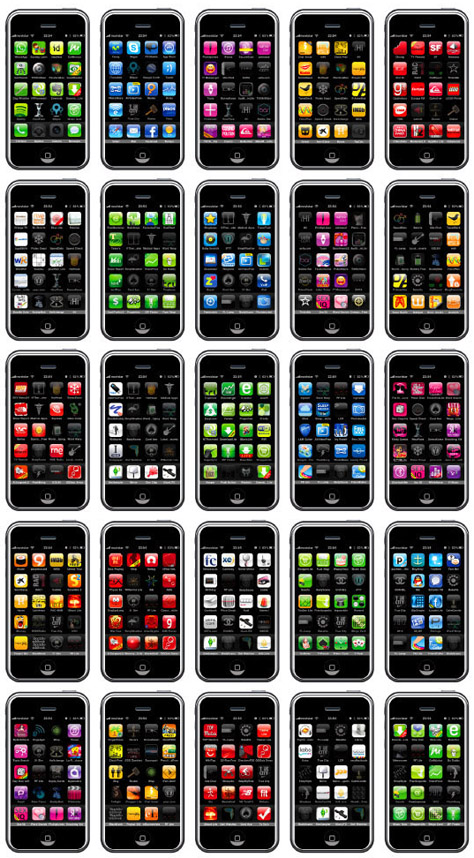
You can even watch a movie of the letters displayed on Urikane’s iPhone: